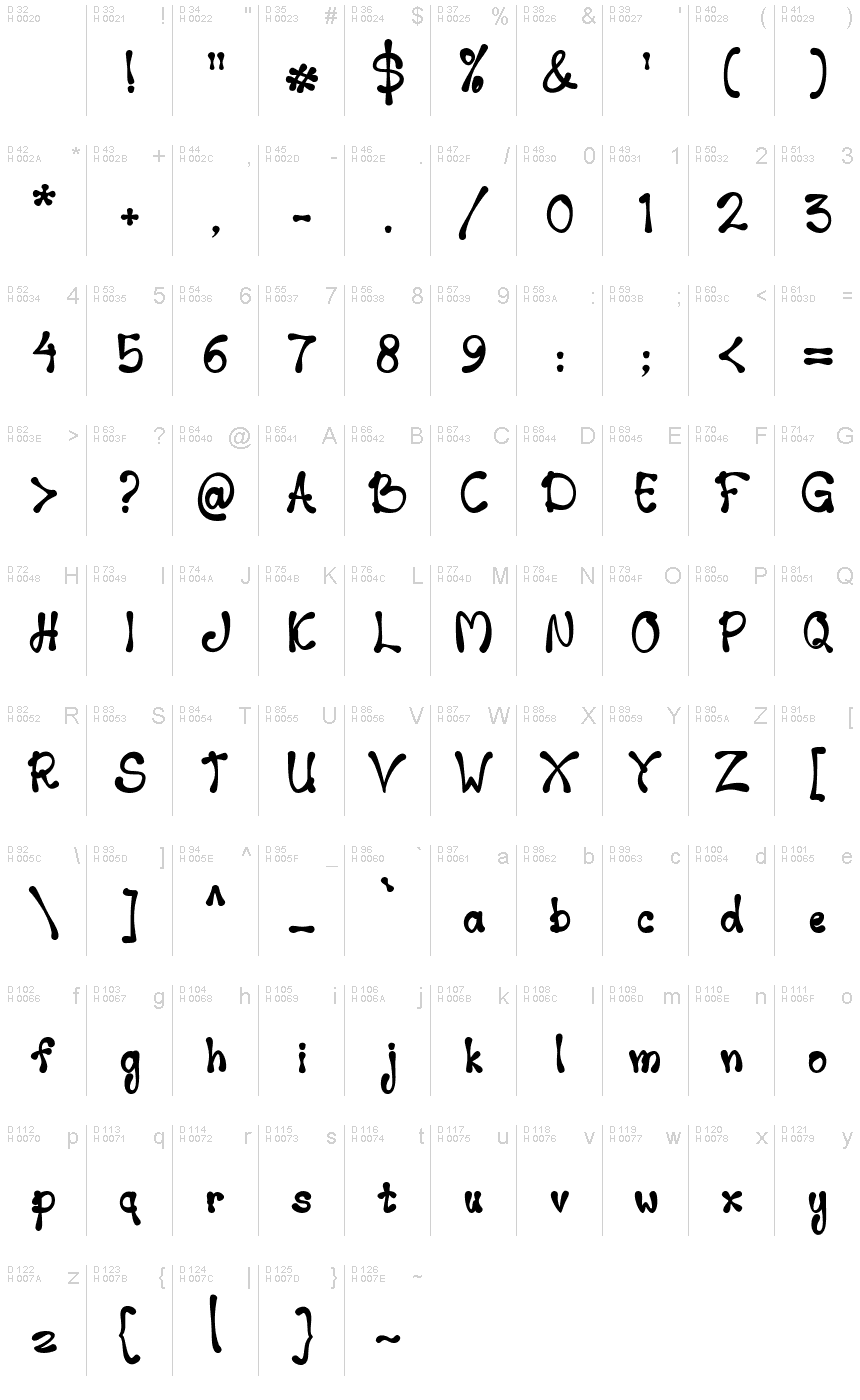
Good Baby Regular
Good Baby, the fun and playful font designed by Sukolab Std, is perfect for projects that require a touch of whimsy. With its semi-light weight and cartoon style, this display font is perfect for children's books, party invitations, and branding for businesses catering to families. The bubbly letters will add a cheerful touch to your designs while still maintaining readability. Use Good Baby for any project that needs a youthful and energetic vibe. Let this font bring joy to any marketing material, social media graphics or packaging designs you create!
Good Baby